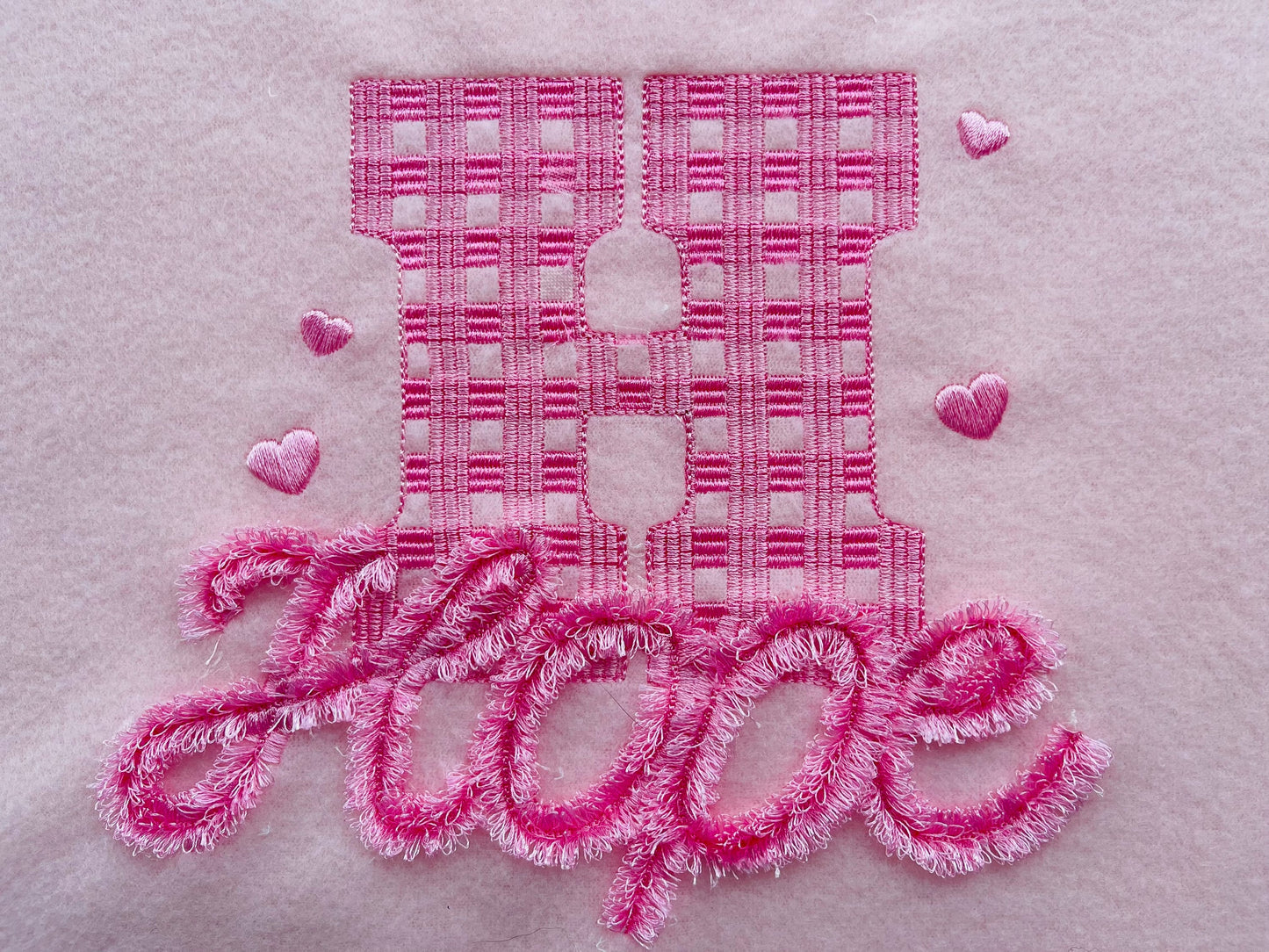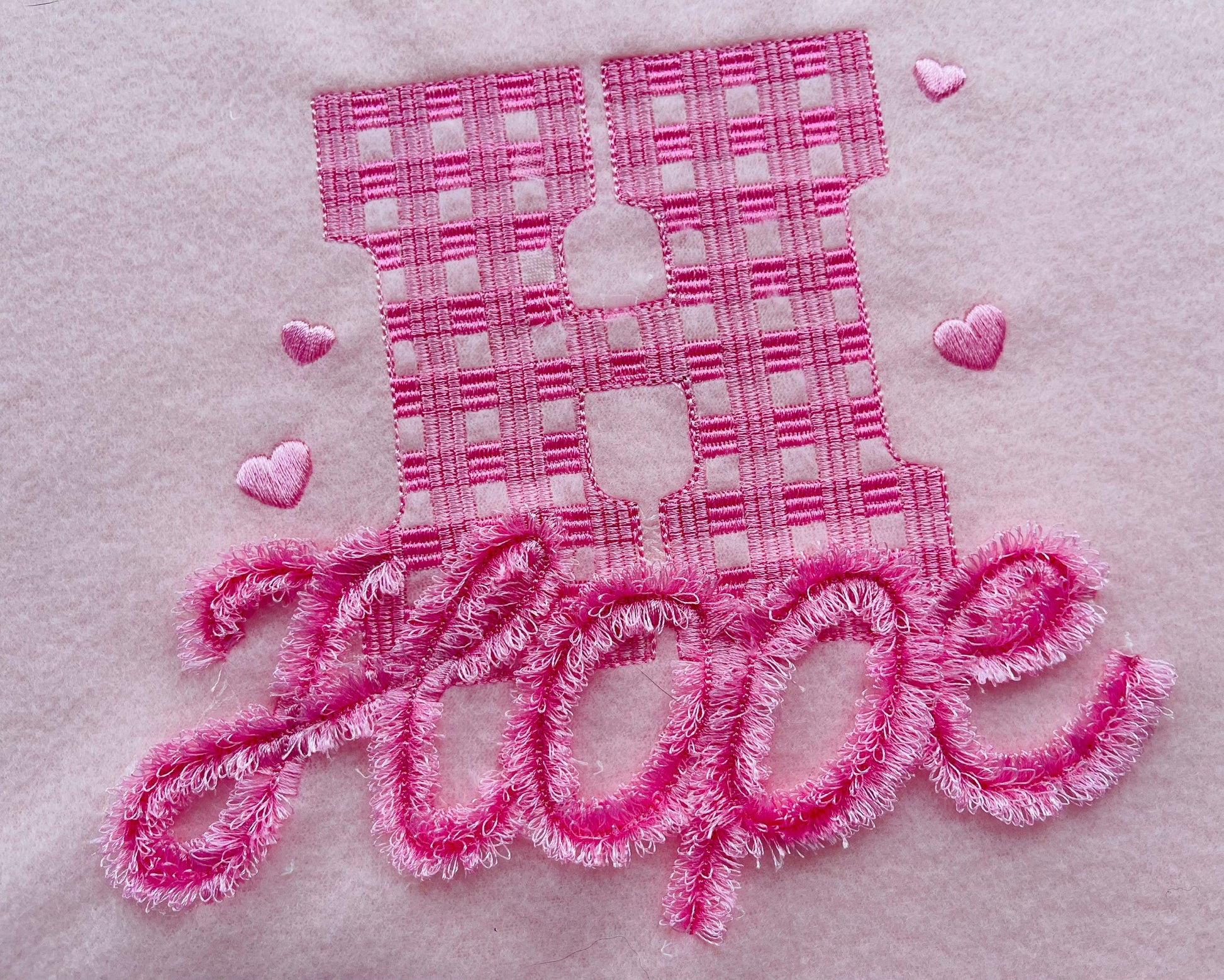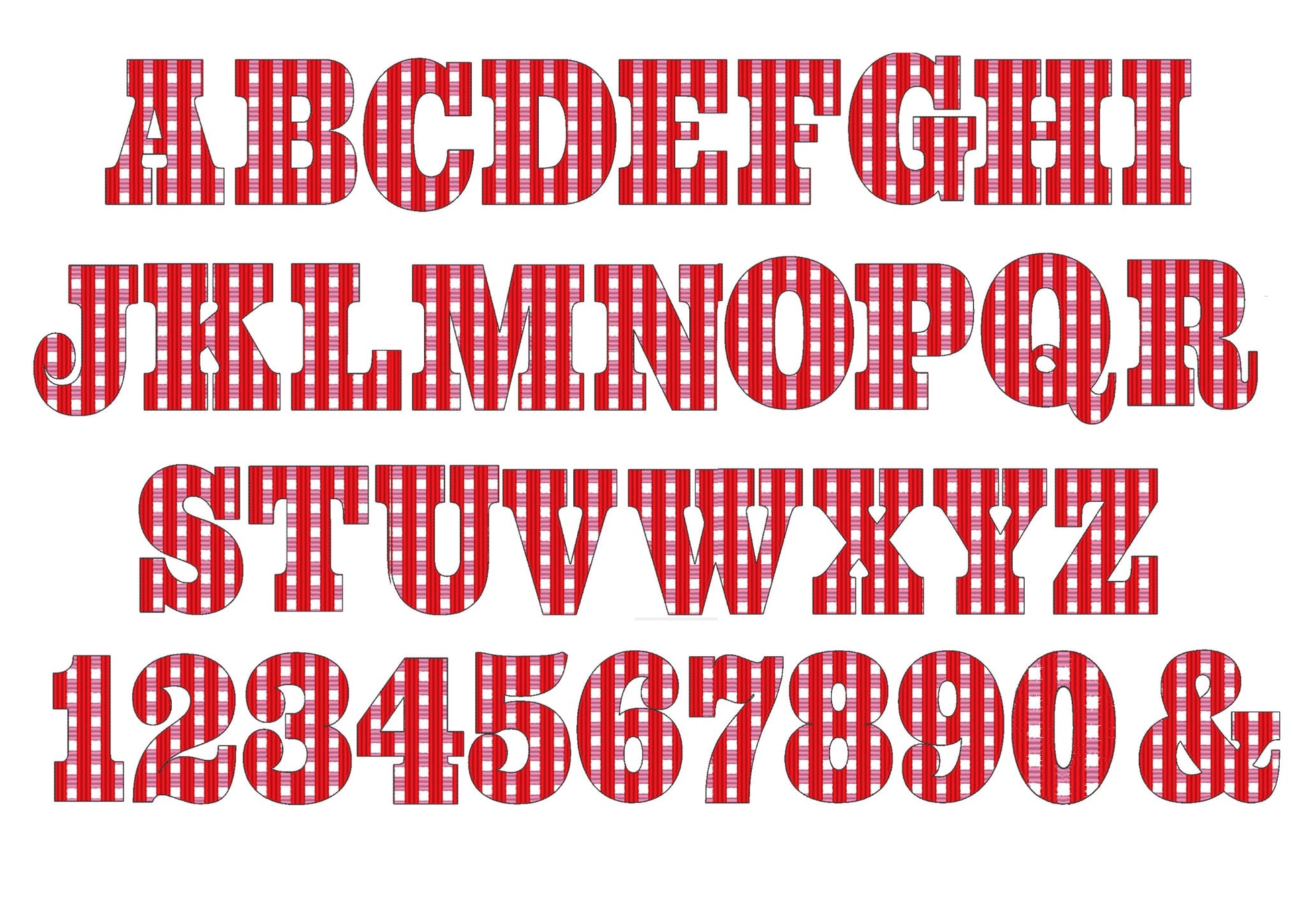
Valentine Gingham Block Font
Or click to open the linkBlock letters filled with a buffalo plaid gingham pattern. Sweet for Valentine's shirts, pillows, names and gifts.
Uppercase letters A to Z, numbers 0 to 9 and &, in seven sizes: 1.2, 1.5, 2, 2.6, 3.3, 4.4 and 5.6 inches. The plaid is stitched right into the letters, not applique, and the fabric shows through. Hearts and the fringed font in the pictures are not part of this design.
- Gingham plaid block letters A to Z
- Numbers 0 to 9 and &
- 7 sizes, 1.2 to 5.6 in